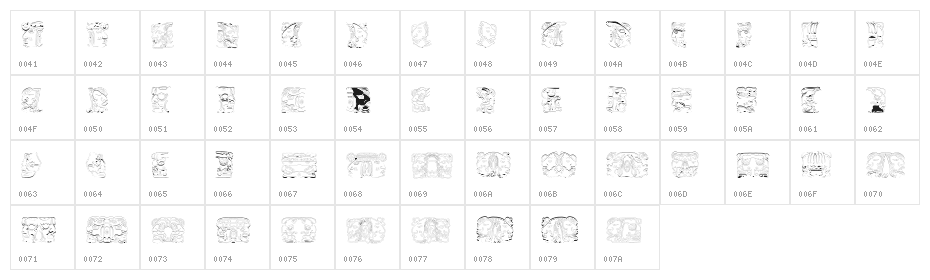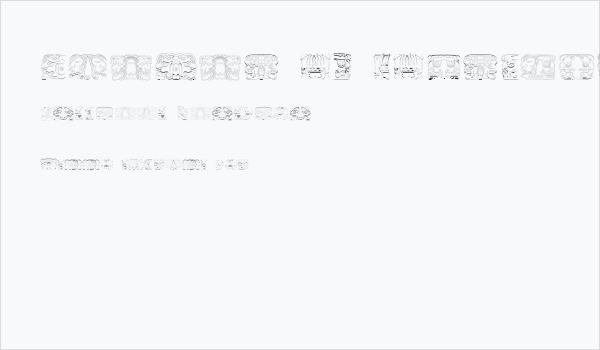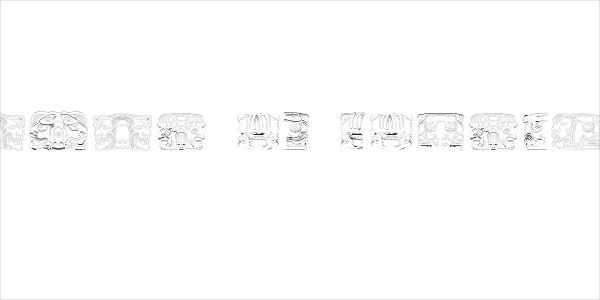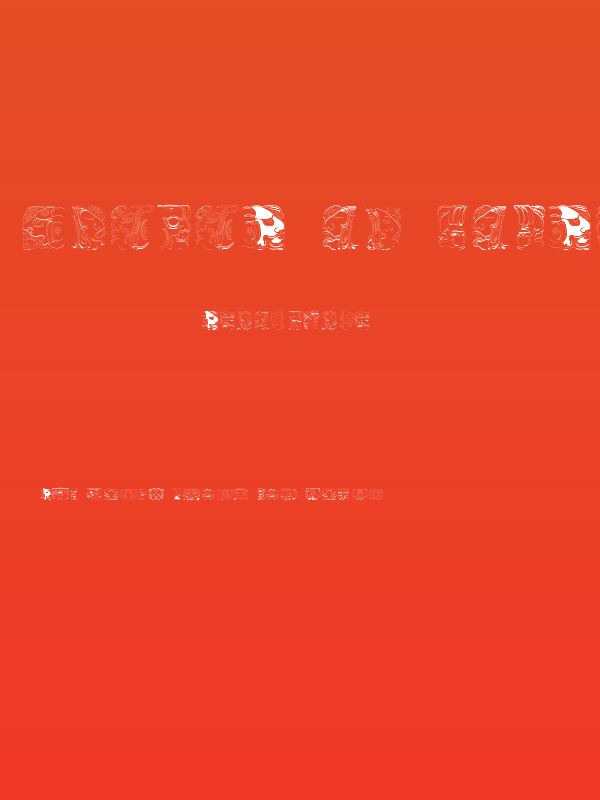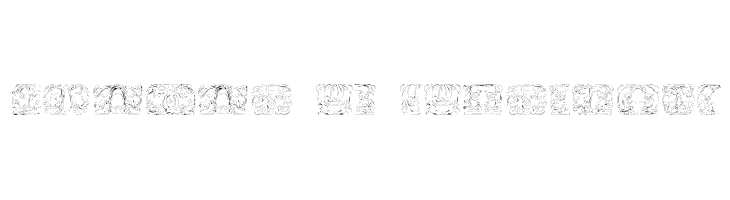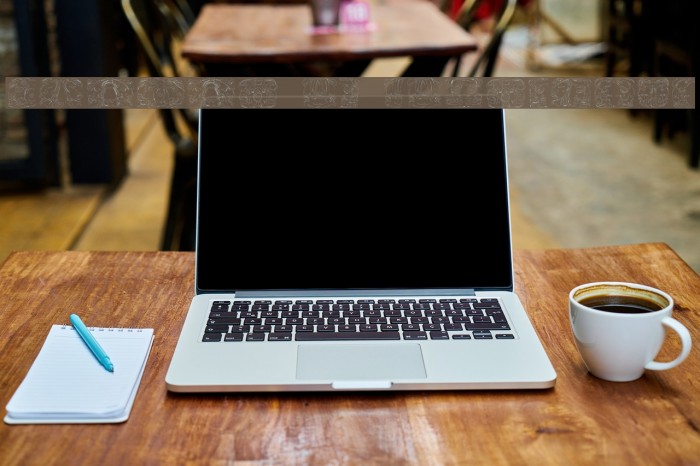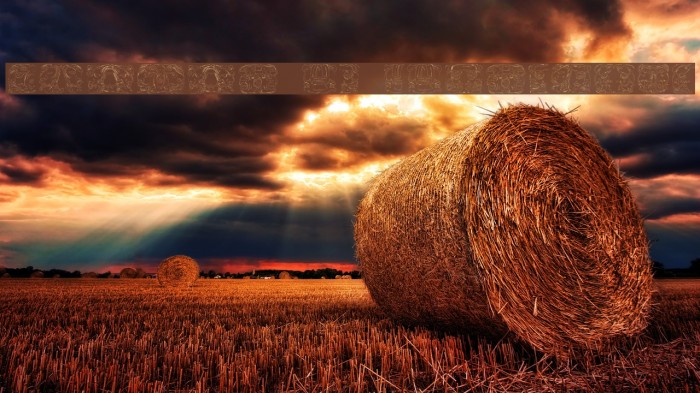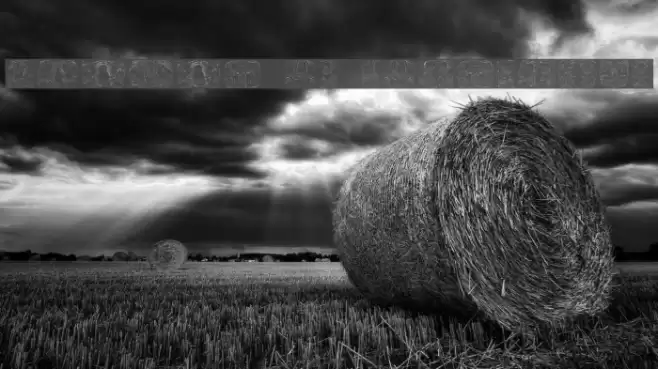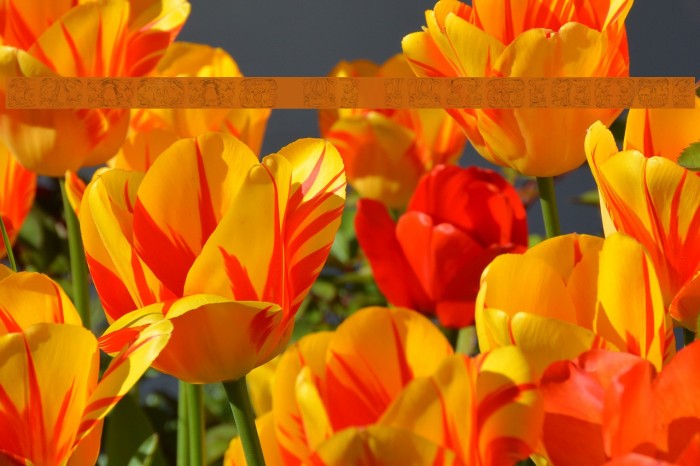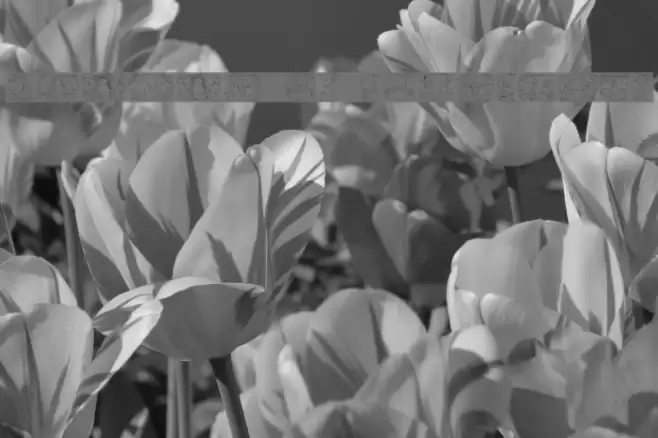
Spirit of Montezuma Font
Spirit of Montezuma Description
This font is a highly decorative and intricate typeface, featuring elaborate designs within each character. The letters are adorned with swirling patterns and ornate details, reminiscent of ancient or tribal art. Each character is unique, with a complex interplay of lines and shapes that create a visually captivating effect. The font's style is bold and artistic, making it stand out with its distinctive and elaborate design. It is not suitable for body text due to its complexity but serves as an eye-catching element for special projects.
| Use Case | Logos, Headlines, Artistic projects |
| Proposed Projects | Ideal for themed event invitations, artistic posters, or branding that requires a unique and decorative touch. |